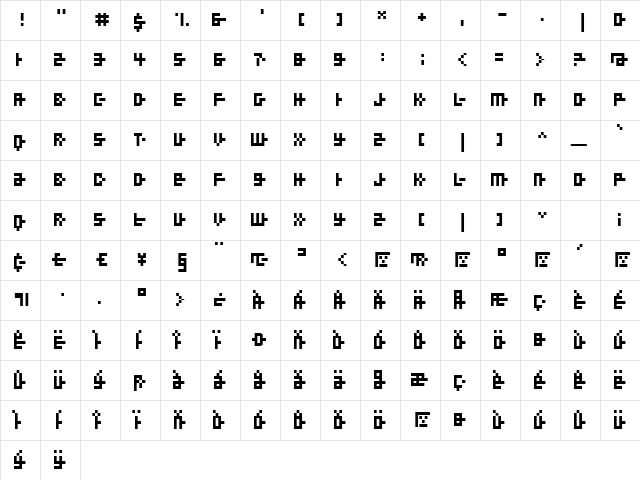
RufusBlue Regular
Design Context for RufusBlue Typeface
RufusBlue is a composed and adaptable typeface that performs quietly and consistently across a wide range of design contexts.